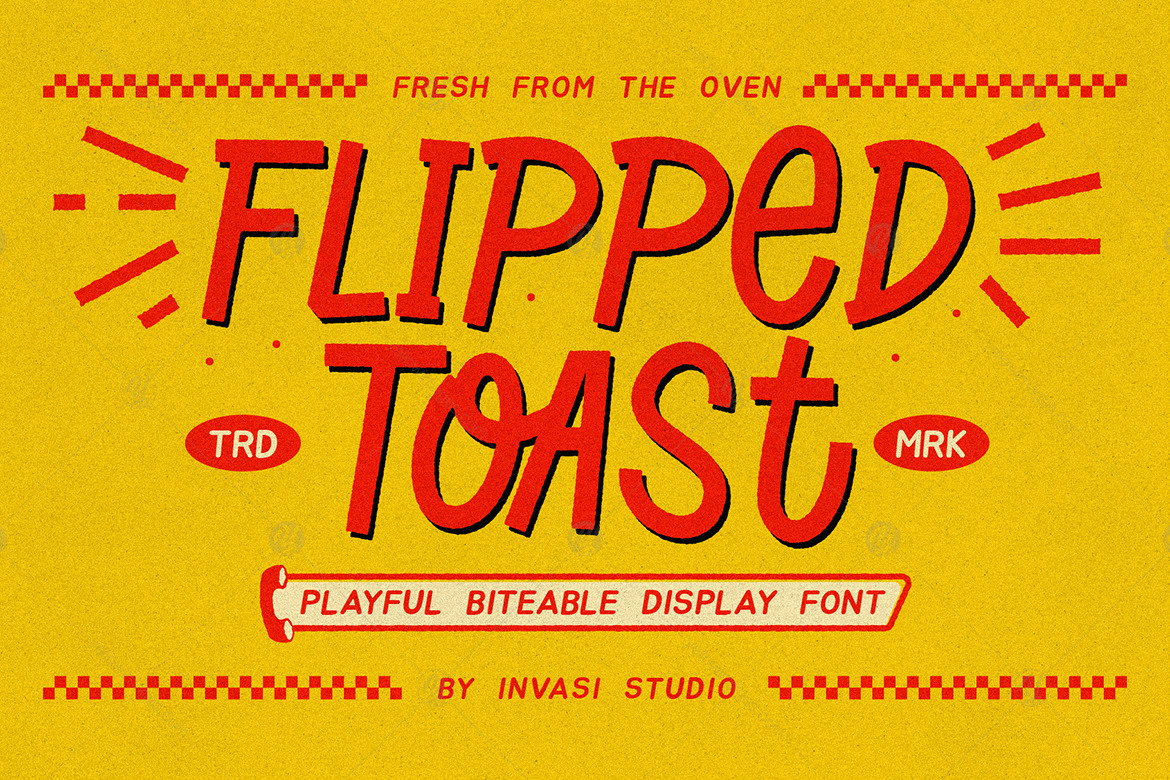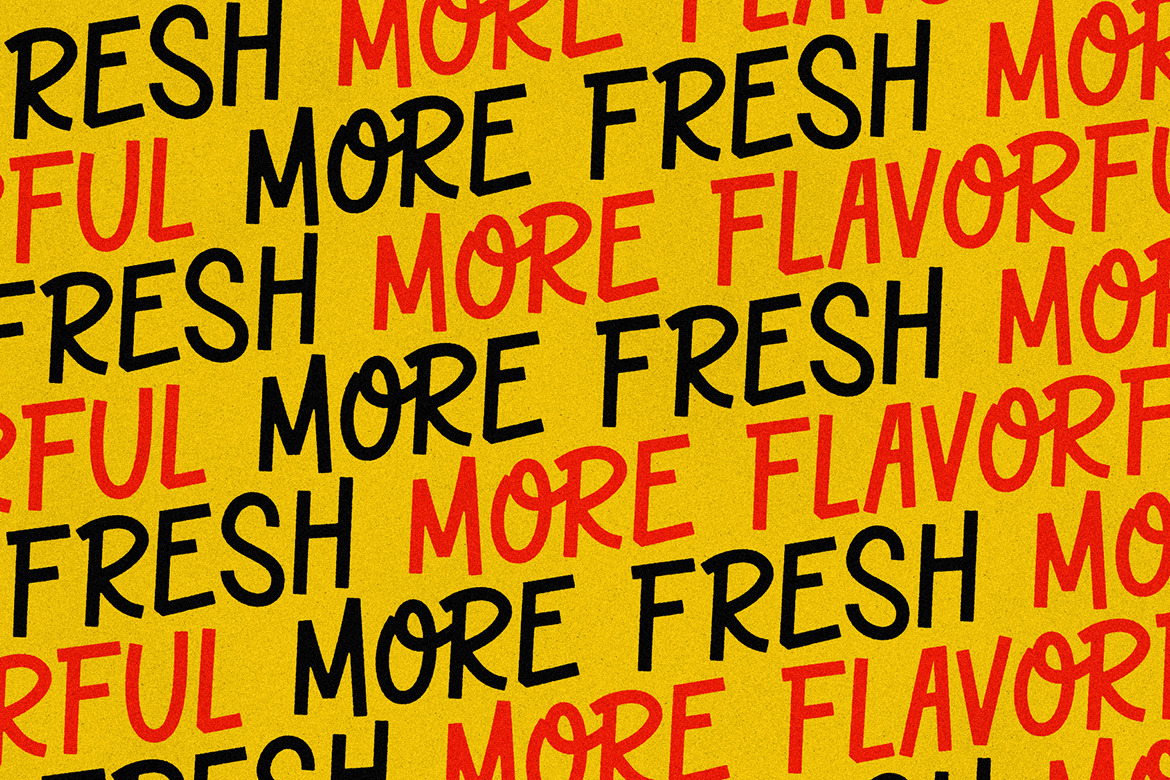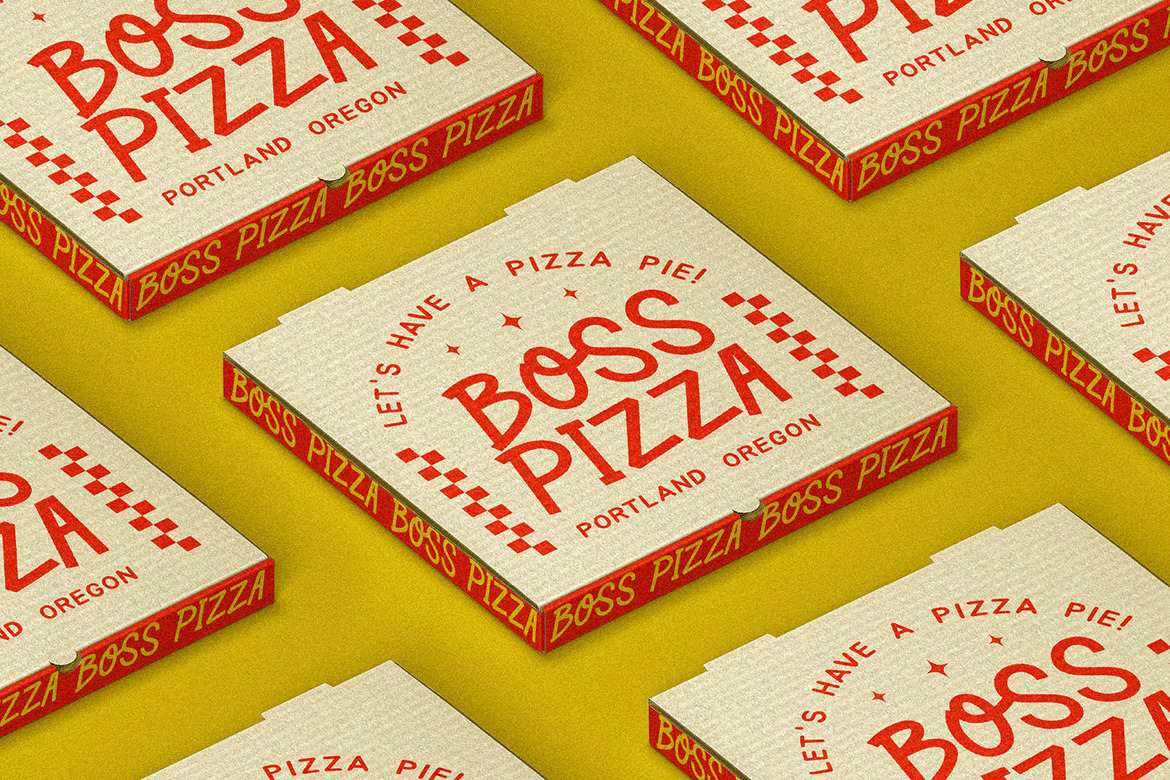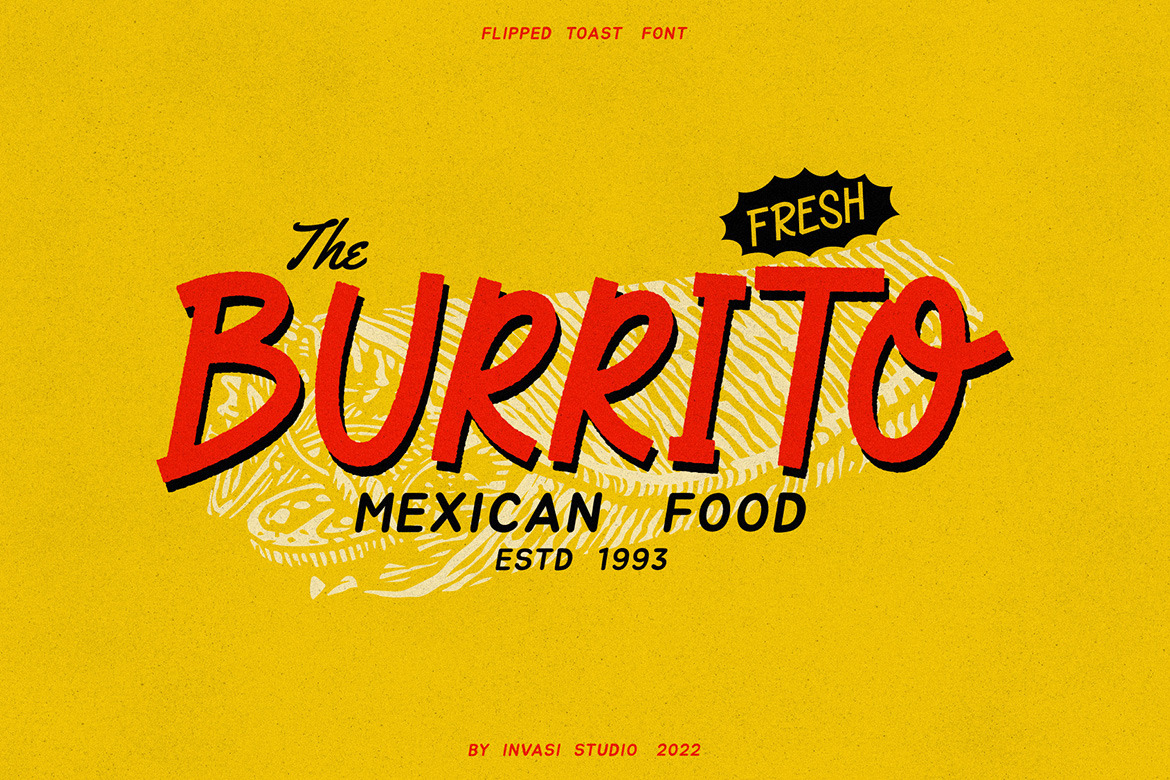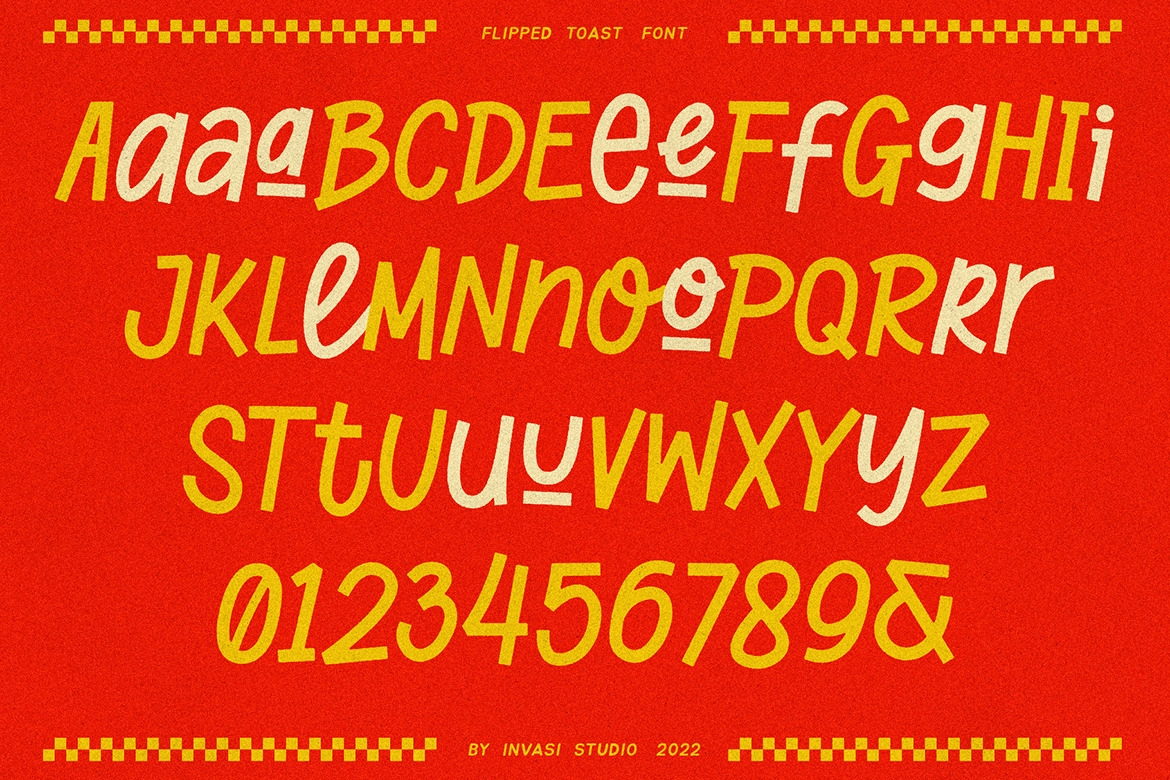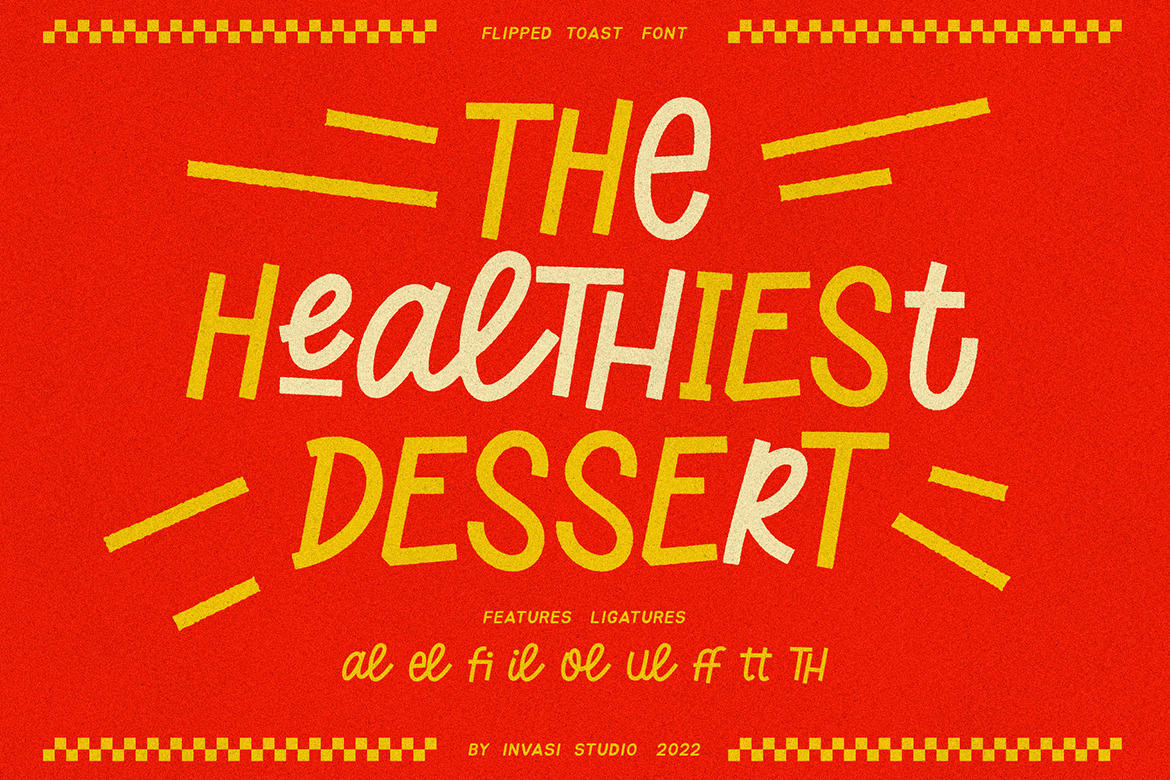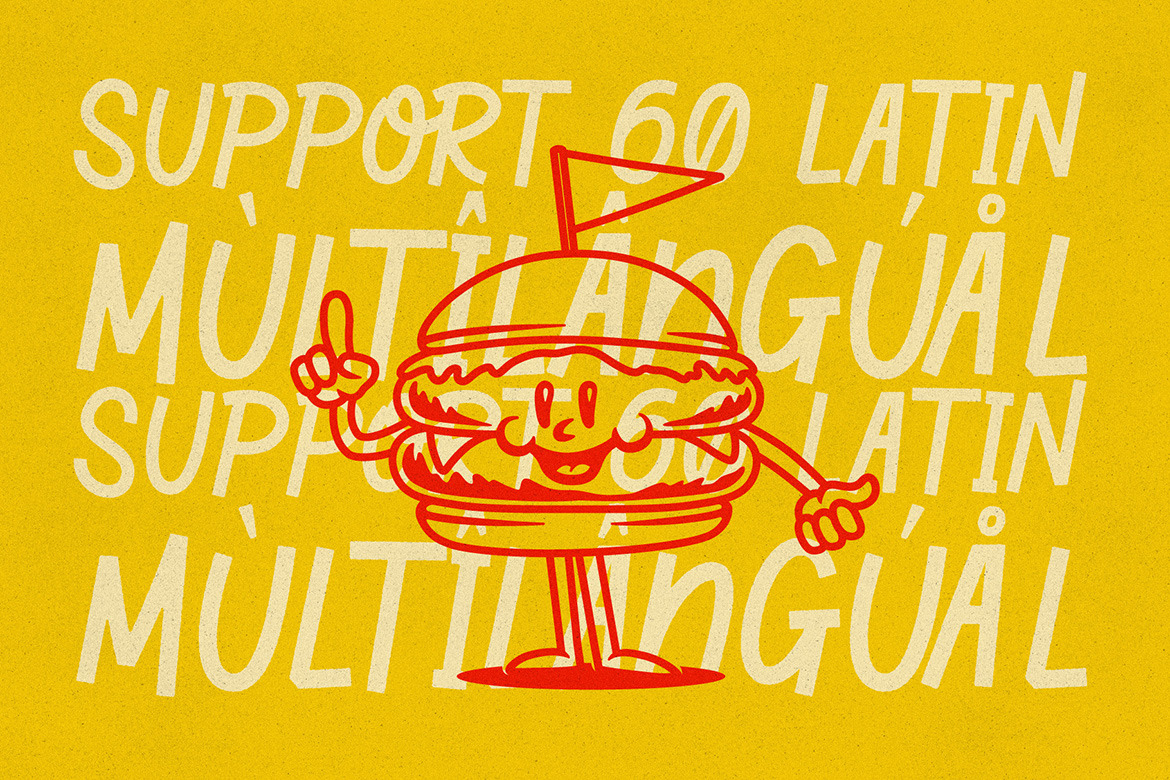
Flipped Toast - Playful Biteable Font
The Flipped Toast display font is a playful and biteable look. There is a combination of modernity, playfulness, and formality in it. Your projects will be more fun with it since it contains so many alternates and ligatures. It's perfect for greeting cards, logos, posters, and anything else that needs a fun and happy look!
- Total 244 Glyph
- Numerals & Punctuation
- Alternates & Ligature
- Multilanguage Supports 60+ Latin-based languages